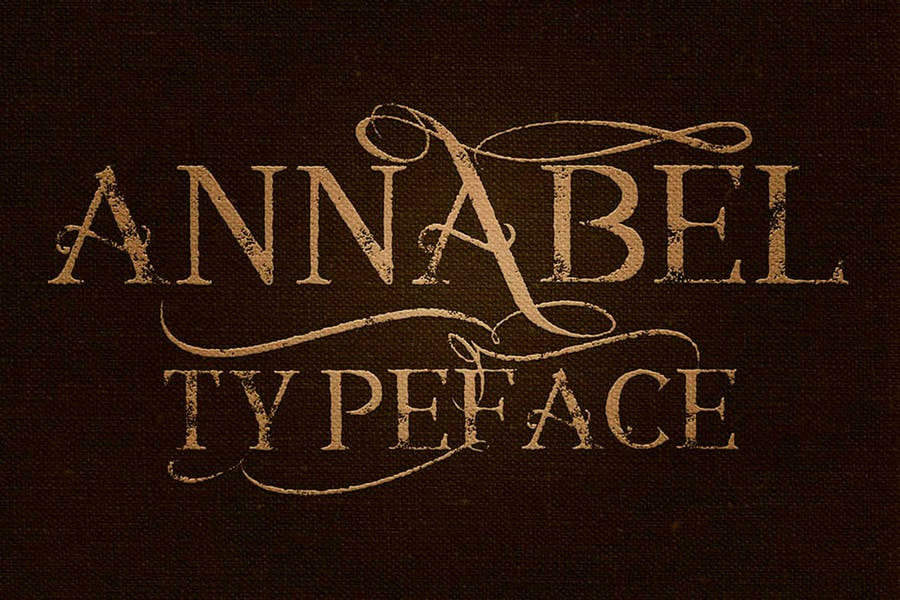
Annabel Font
Annabel Font is perfect for feminine boutique branding, elegant personal stationery, romantic wedding invitations, beauty salon signage, lifestyle blog headers, artisan jewelry marketing, graceful event planning, and sophisticated feminine communications.
What makes Annabel Font exciting is its graceful femininity that embodies timeless elegance and personal charm with refined sophistication and approachable warmth. The font features delicate letterforms with gentle curves and harmonious proportions that evoke handwritten notes, silk scarves, and the effortless grace of confident feminine style. Its distinctive elegant styling and personal appeal communicate refinement, authenticity, and feminine strength, making every message feel touched by personal care and elevated by the timeless beauty of graceful expression.
The Annabel Font family includes regular weight with uppercase and lowercase letters, numerals, punctuation marks, and special characters. Premium versions often feature stylistic alternates and elegant flourishes that enhance the sophisticated, feminine aesthetic perfect for personal and beauty branding applications.
This enchanting feminine typeface brings instant elegance and personal charm to any beauty-focused project. Annabel Font Free Download offers exceptional value for businesses targeting sophisticated women who appreciate refined aesthetics, personal touch, and the graceful expression of feminine elegance.
The graceful character of Annabel Font makes it particularly valuable for personal stylists, wedding planners, and elegant lifestyle brands. Its excellent readability ensures personal messaging and beauty communications remain clear while maintaining the distinctive feminine aesthetic that appeals to women seeking refined experiences and personal expression of elegant style.
Feminine brand marketers appreciate how Annabel Font effortlessly conveys personal elegance and sophisticated charm. The font's graceful proportions and refined details create beautiful brand materials that establish emotional connections with audiences who value personal style, feminine sophistication, and the elegant expression of individual beauty and grace.
The versatile elegance of this typeface extends to personal coaching, elegant gift companies, and sophisticated women's services where feminine authenticity enhances personal appeal. Annabel Font Free Download provides creative professionals with an essential tool for developing memorable, elegance-driven designs that resonate with audiences who embrace feminine sophistication, personal style, and the graceful beauty of elegant feminine expression in their lifestyle and personal branding choices.